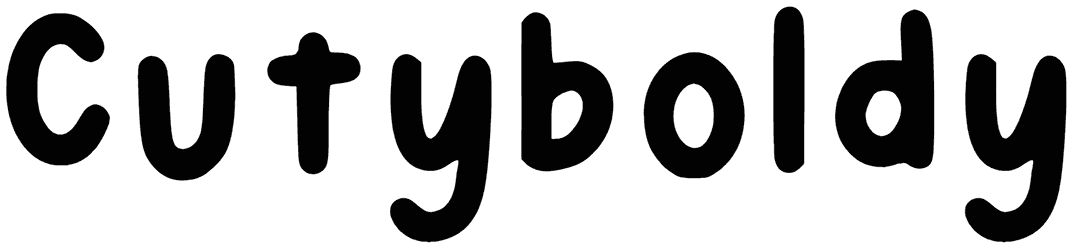
Cutyboldy Font
Designed bySyauqiyyah Alyaa Hamsya
Say hello to Cutyboldy, handwritten font with a bold and cute mood. This modern font with a minimal face is an adorable and adaptable option for varied designs and themes. Set Cutyboldy on your future poster text or other designs like foregrounds, baby shower invitations, or suchlike, and have a cheerful one.